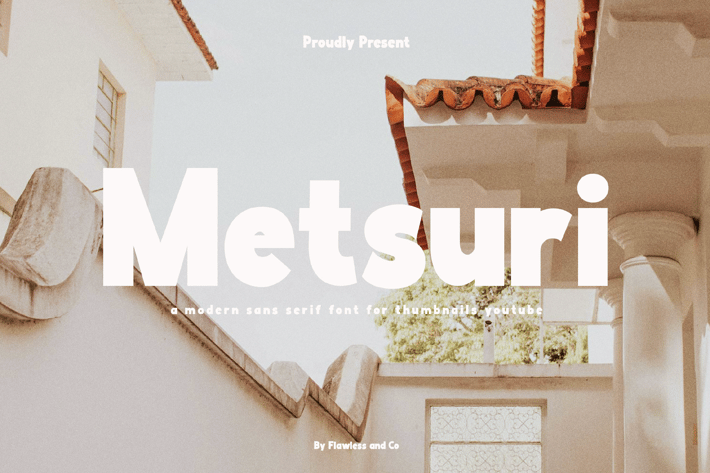
Metsuri Thumbnail Font
Introducing Metsuri, a bold and captivating sans-serif font designed to make your YouTube thumbnails stand out from the crowd. With its clean lines and geometric structure, Metsuri exudes a sense of modernism and professionalism, perfectly complementing a wide range of YouTube content. This font is suitable for any graphic designs such as branding materials, Thumbnails YouTube, video content, print, business cards, logos, posters, t-shirts, photography, quotes .etc